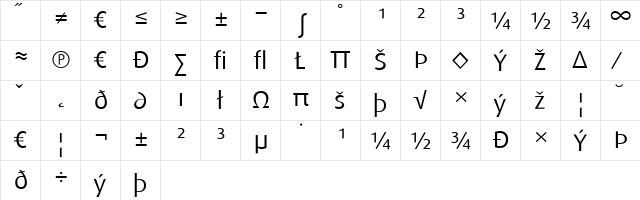
DaxWide Regular
Design Context for DaxWide Typeface
DaxWide offers clean, dependable letterforms without strong stylistic allegiance, making it a practical choice for designers who need flexibility.